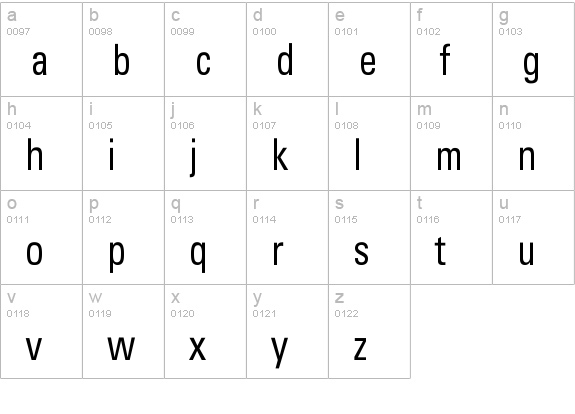
Beetham-Condensed is a distinctive, condensed-width variant in the Beetham typeface family \xE2\x80\x94 well suited to design and typography projects.
Beetham-Condensed font is a modern and sleek typeface that exudes elegance and sophistication. With its condensed design, this font is perfect for creating stylish headlines, titles, and branding materials. The clean lines and balanced proportions make Beetham-Condensed font a versatile choice for various design projects. What makes Beetham-Condensed font even more appealing is that it is available for free download at FontsMarket.com. This means that you can easily access this high-quality font without any cost, making it a valuable addition to your font collection. Whether you're working on a professional project or a personal creative endeavor, Beetham-Condensed font's timeless aesthetic and readability will surely elevate your designs.